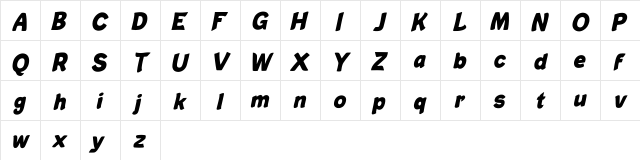
Christopher Done Italic Font Preview
Christopher Done Italic Christopher Done Italic
Christopher Done Italic Font Details
| Style | Christopher Done Italic |
| Foundry | Cundrawan (cove703) |
| Designer | Cundrawan (cove703) |
Design Context for Christopher Done Italic Typeface
Christopher Done Italic is a composed and adaptable typeface that performs quietly and consistently across a wide range of design contexts. The slanted form adds forward momentum and visual energy.